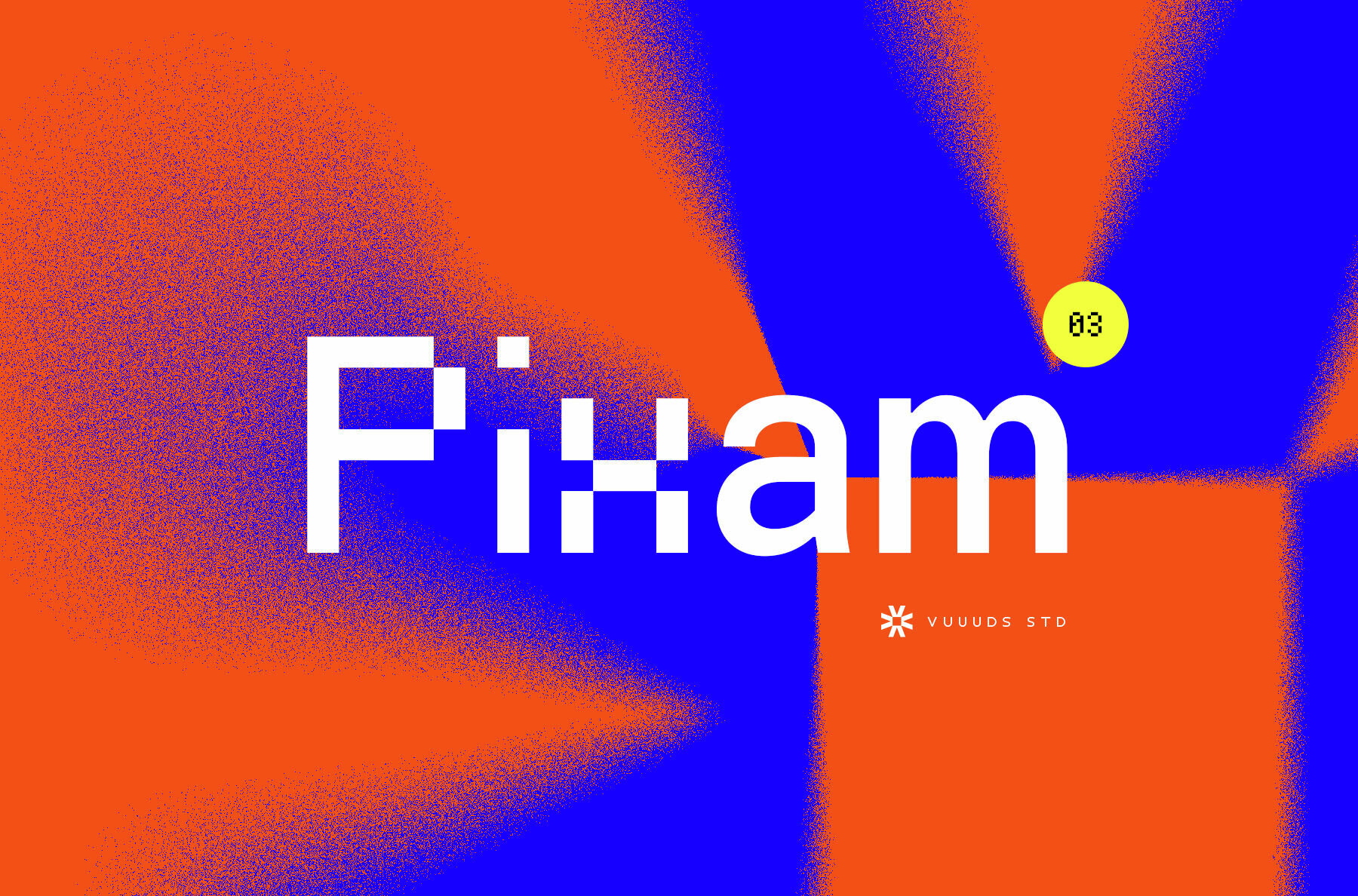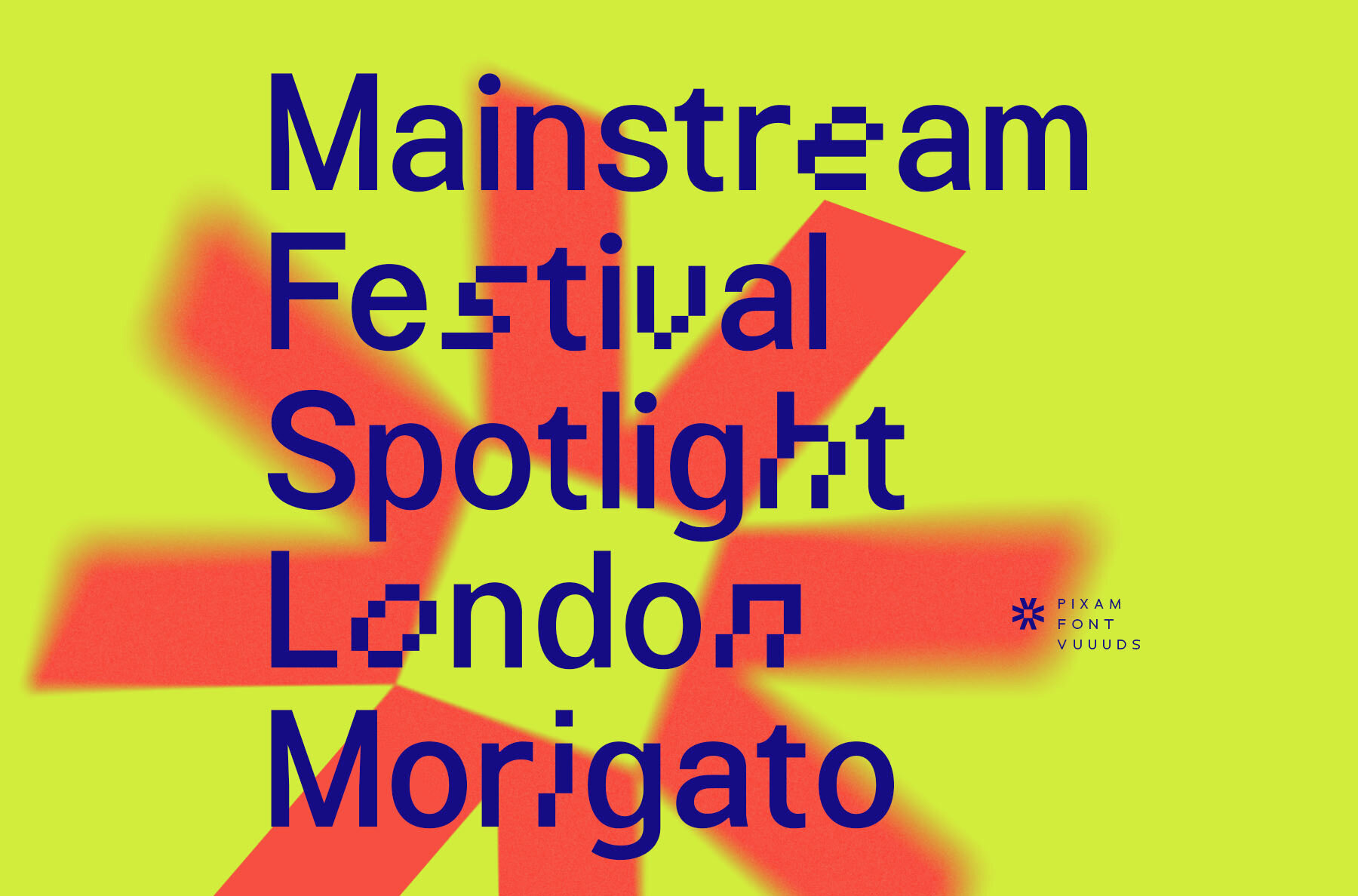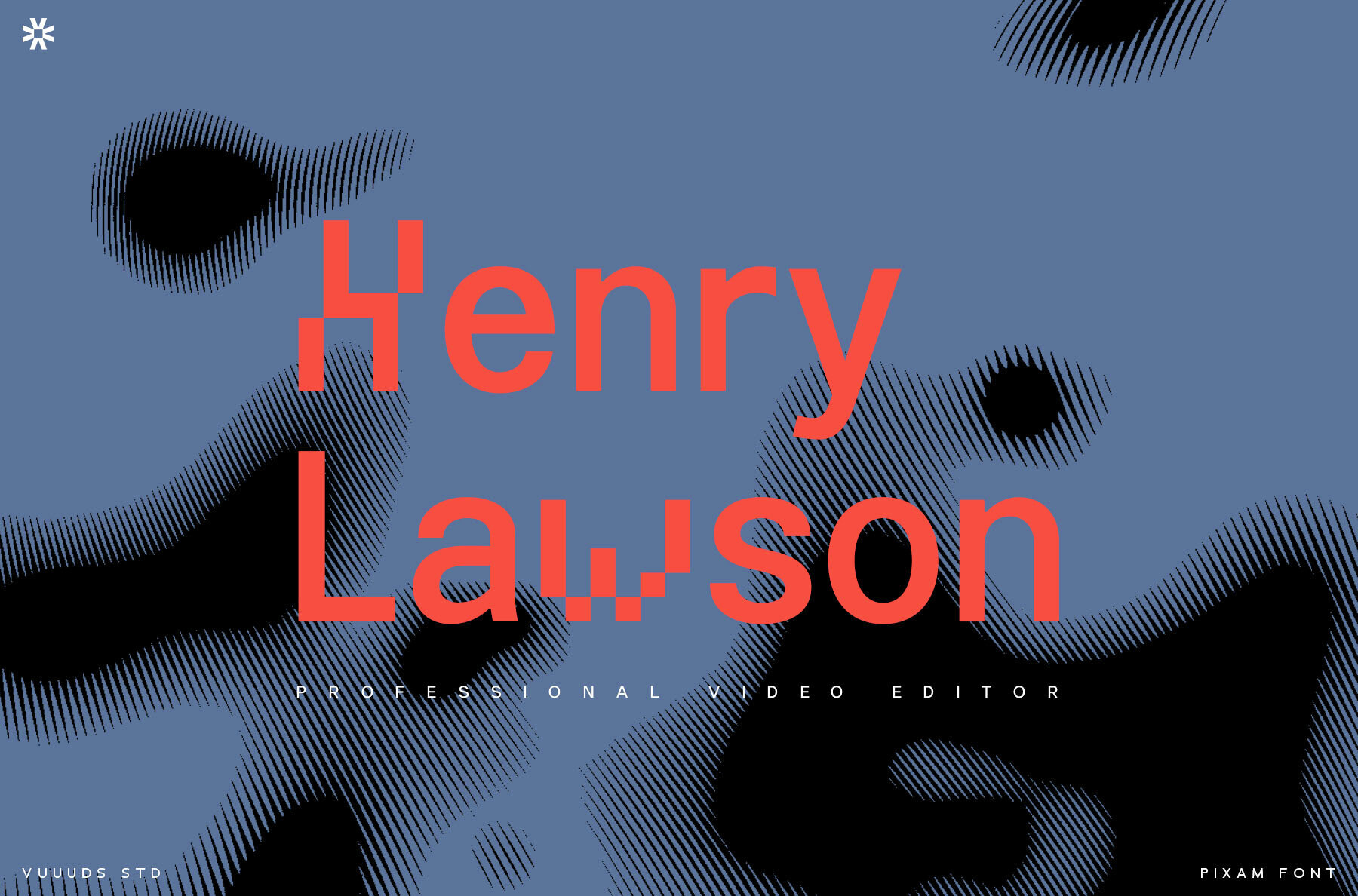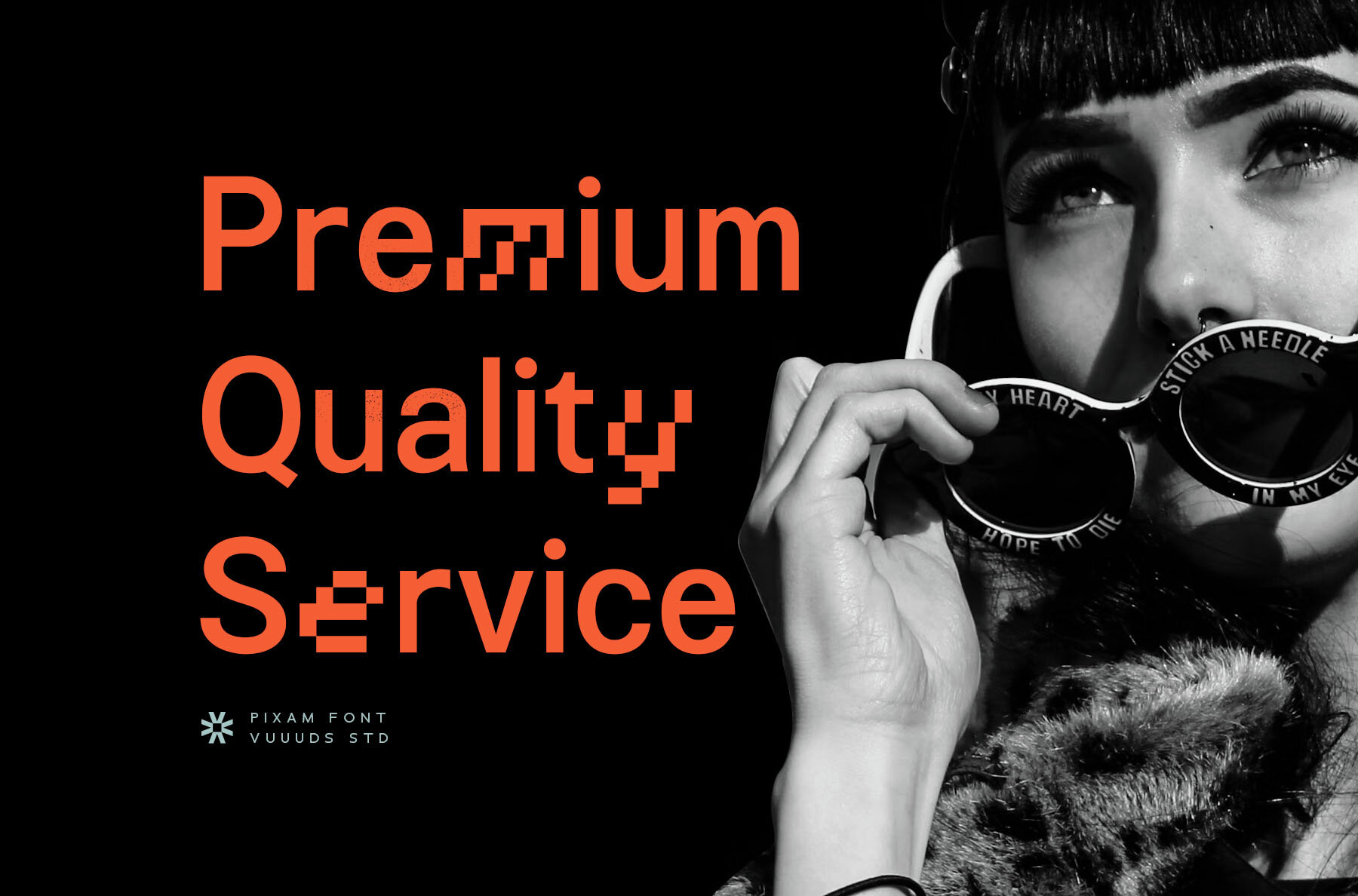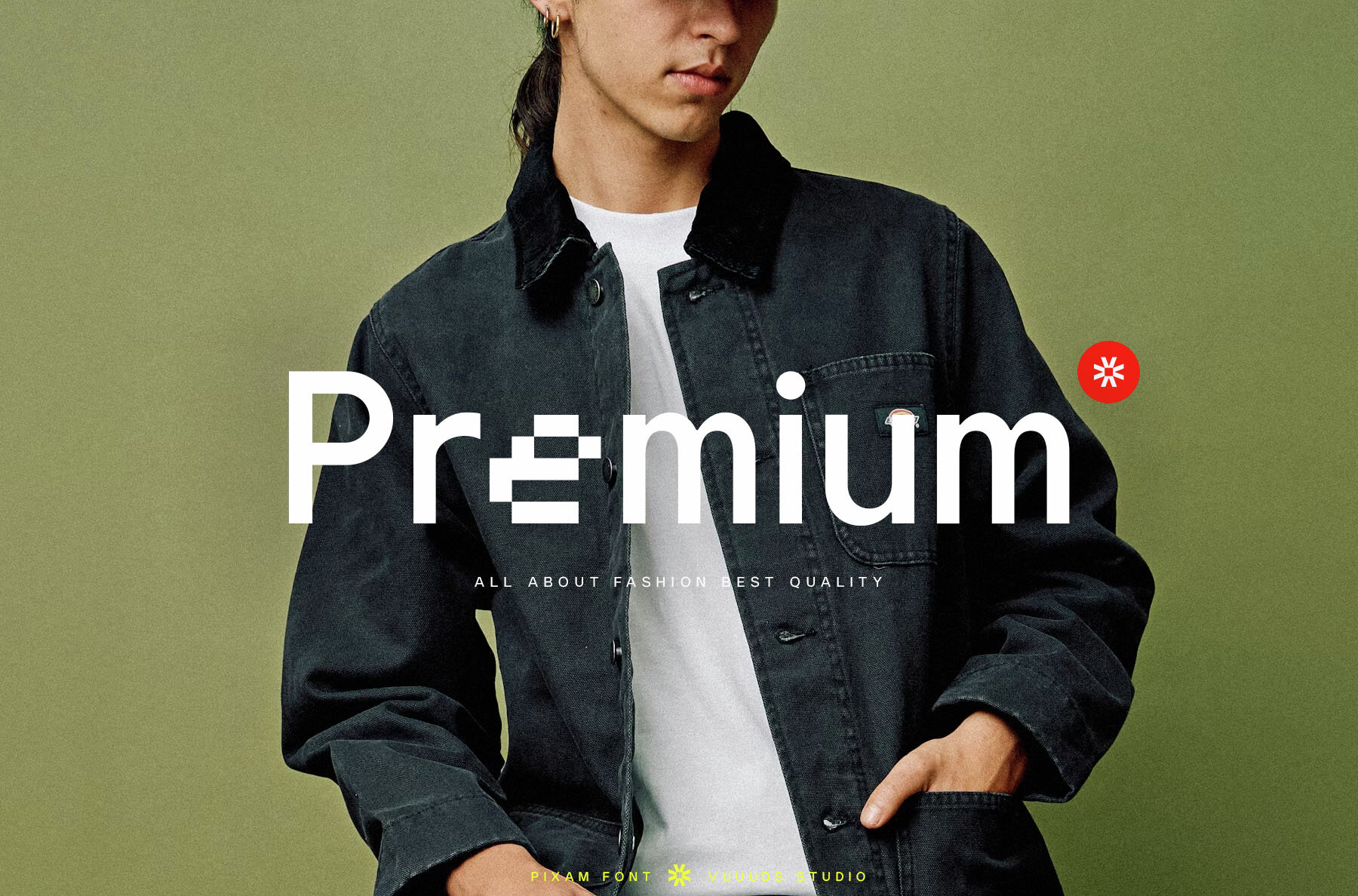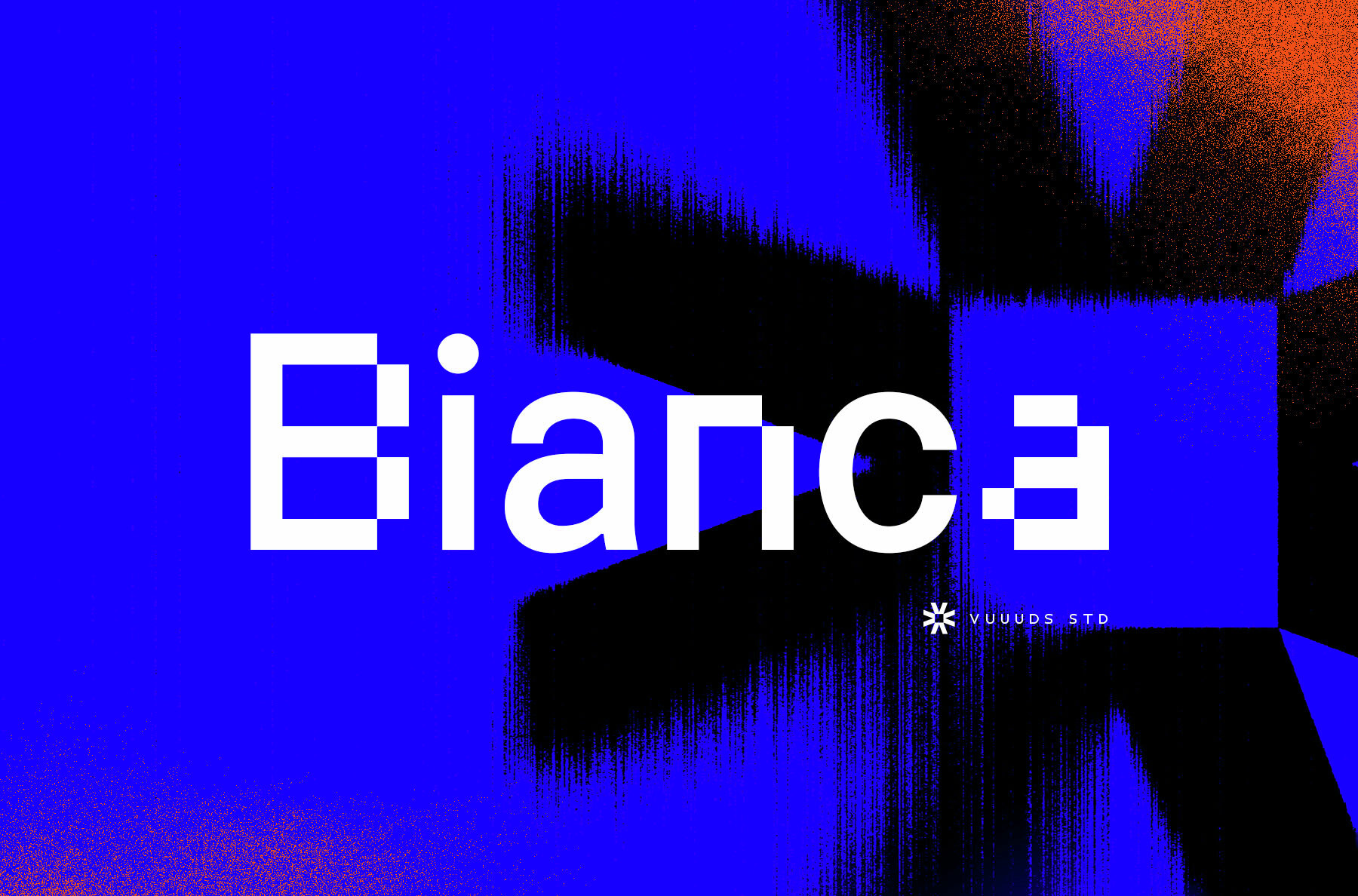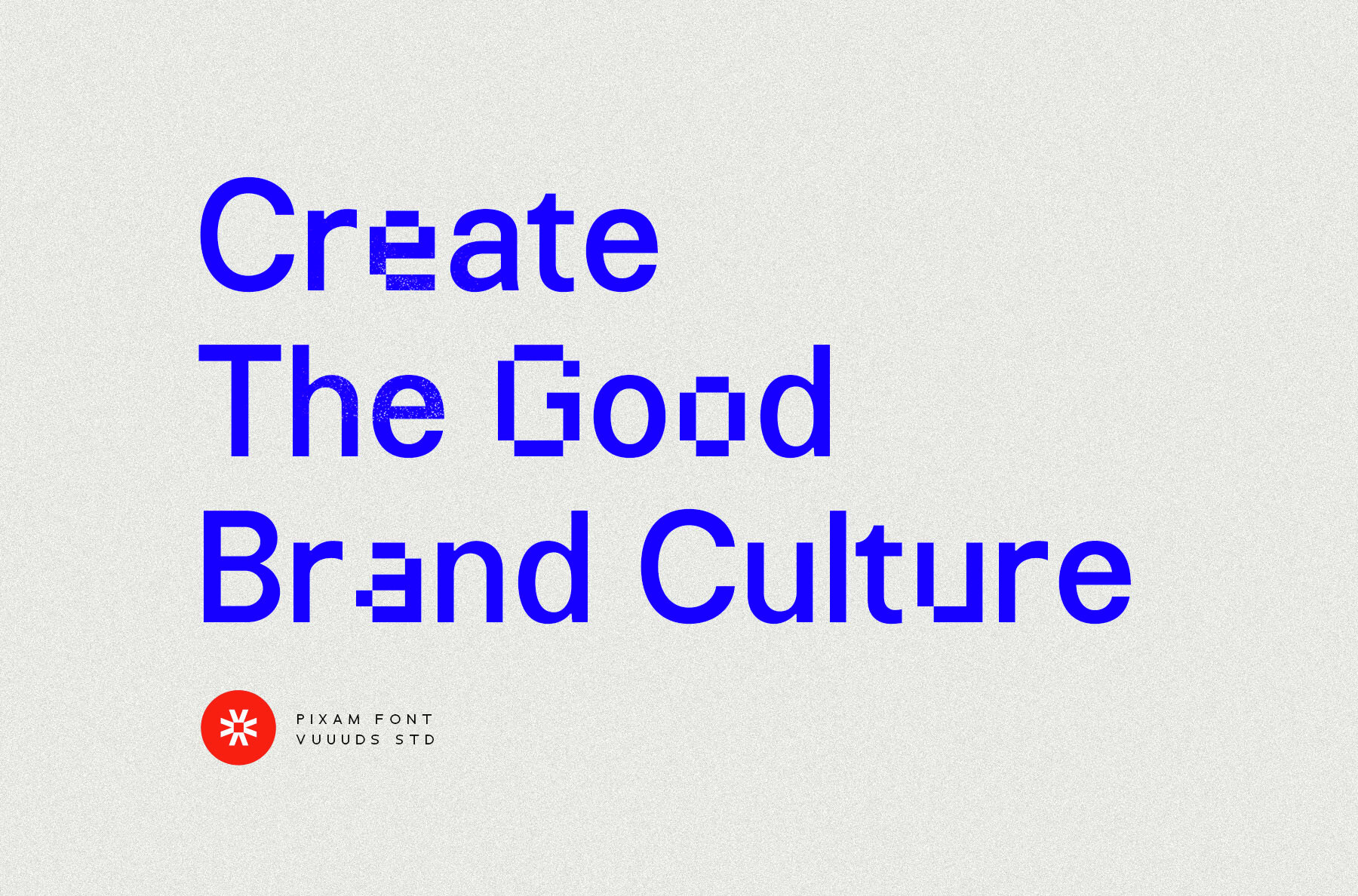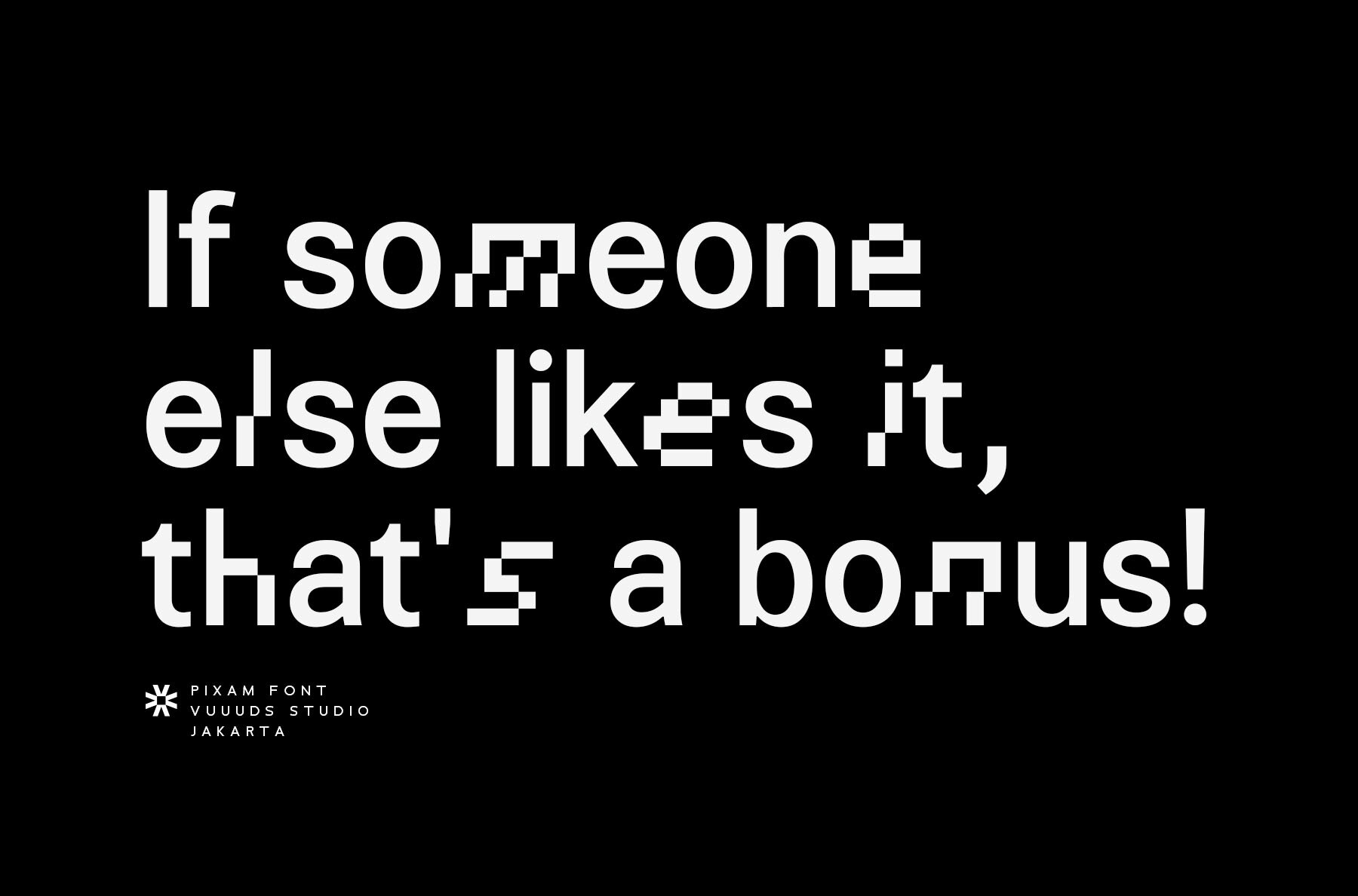
Pixam Font
Pixam combines the characteristics of a sans serif font with a pixelated aesthetic, resulting in uniquely crafted letters. Pixam supports a range of foreign languages with accented characters, symbols, and special signs.Pixam Font: Experimental Sans Serif with Pixel Style